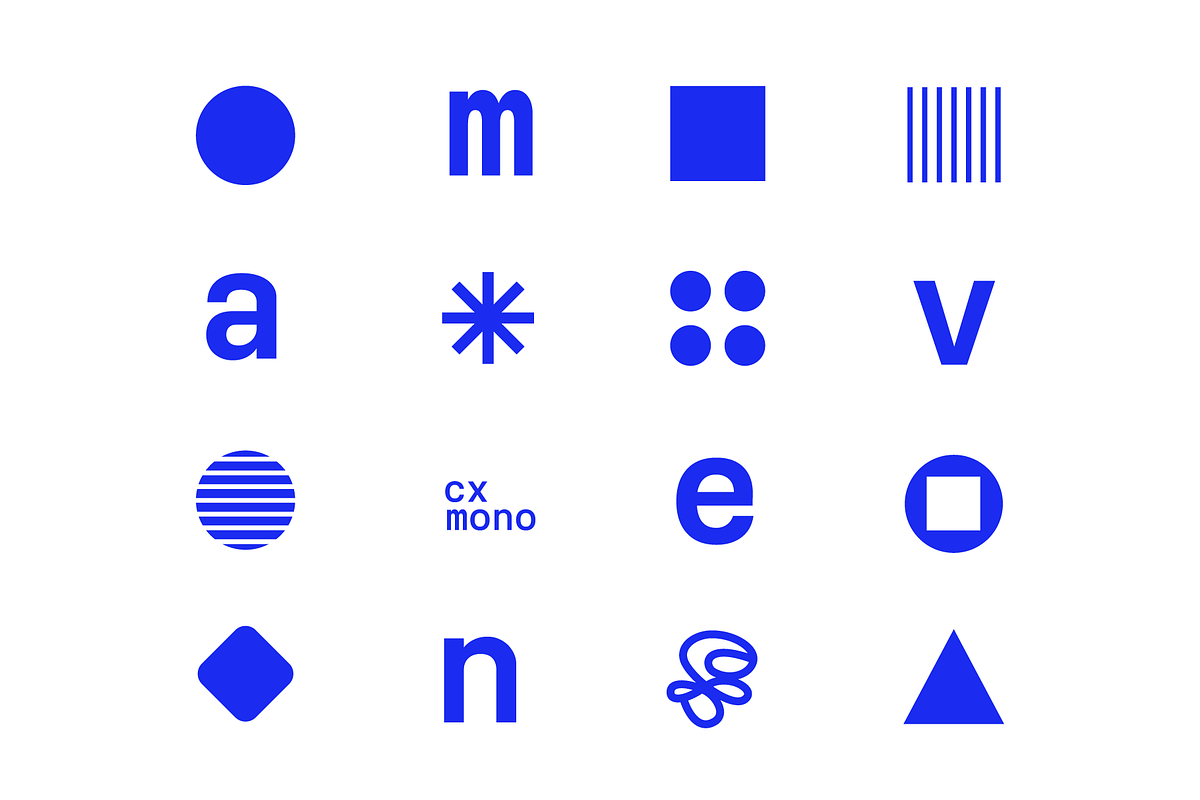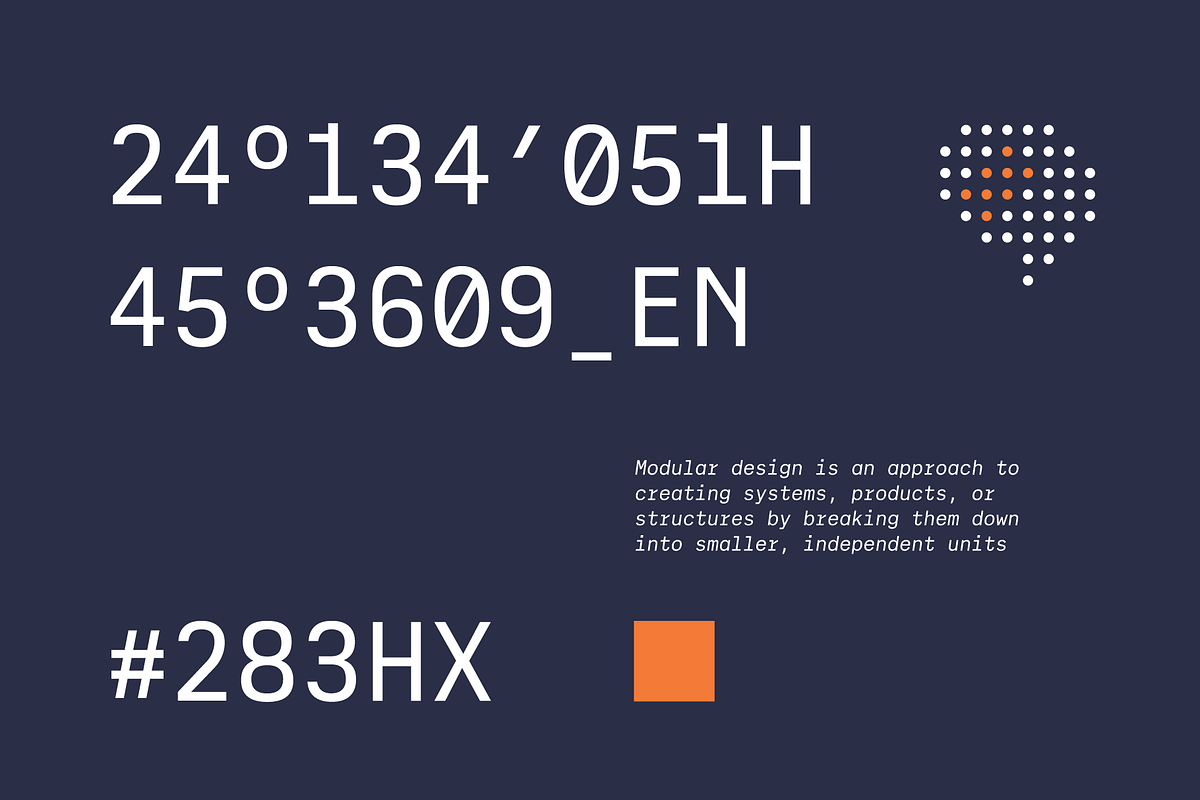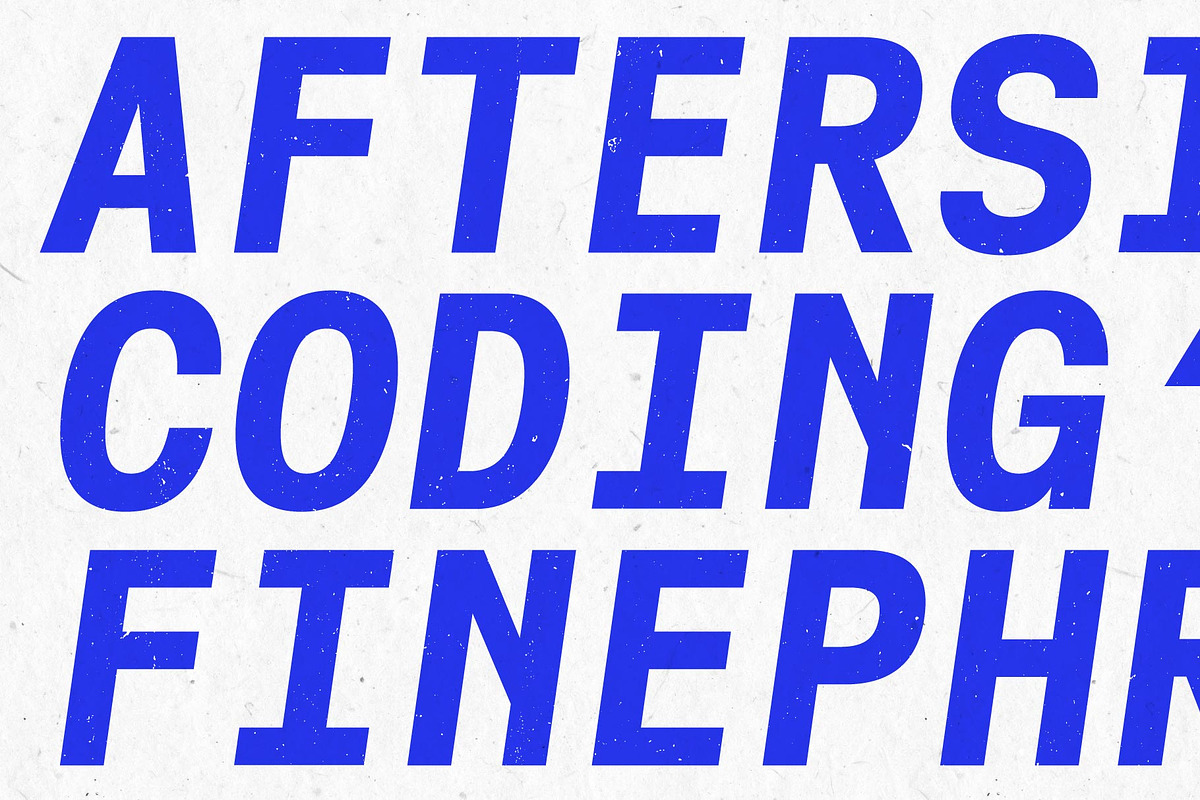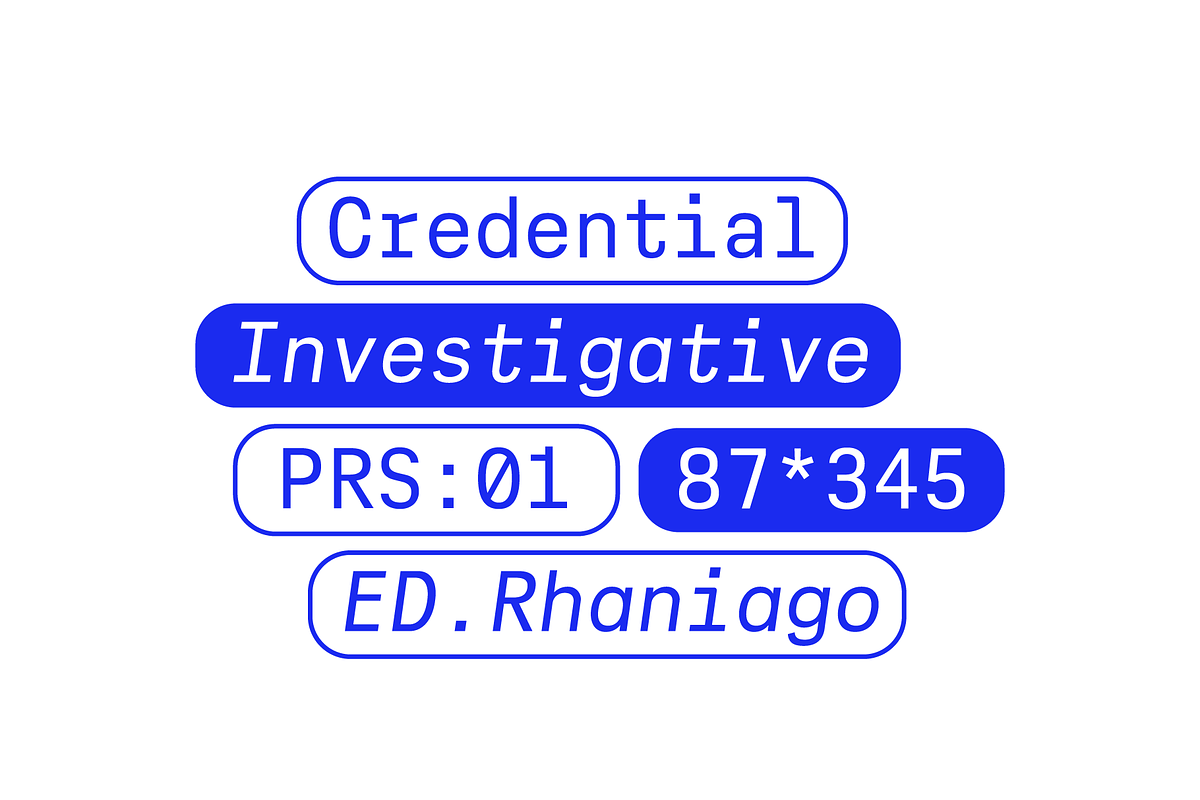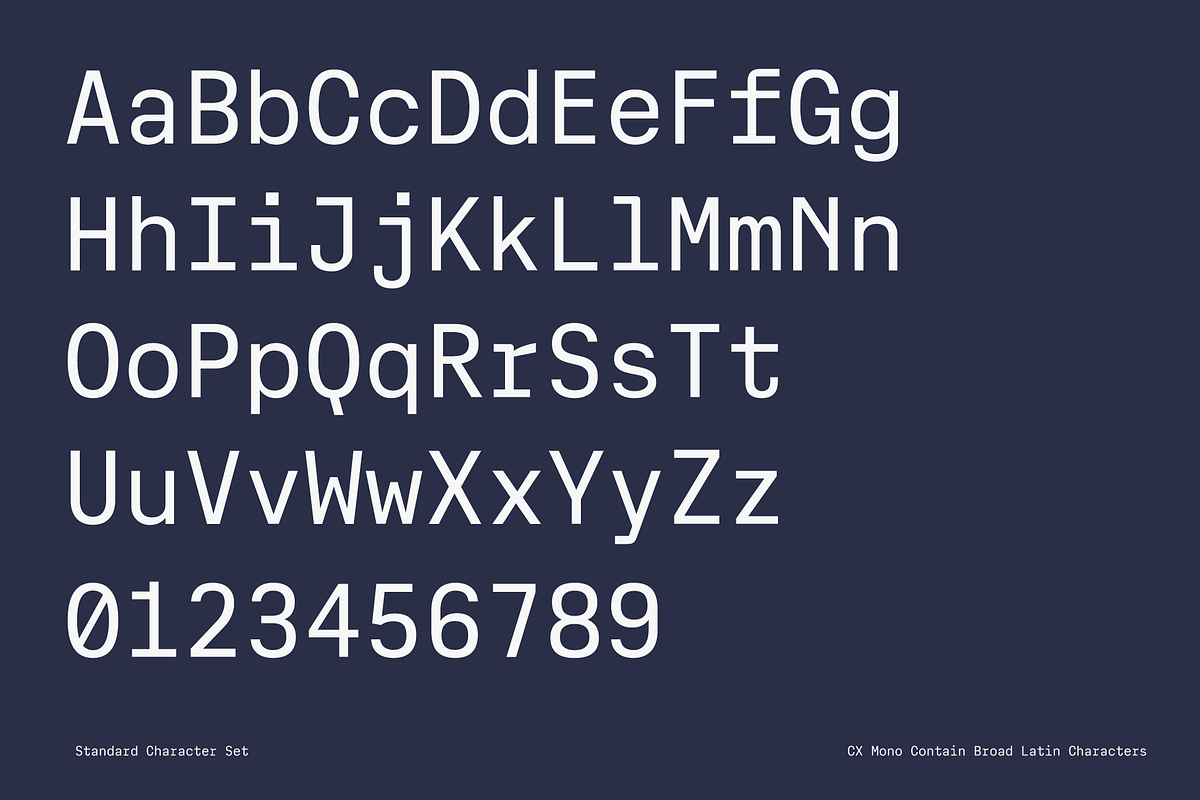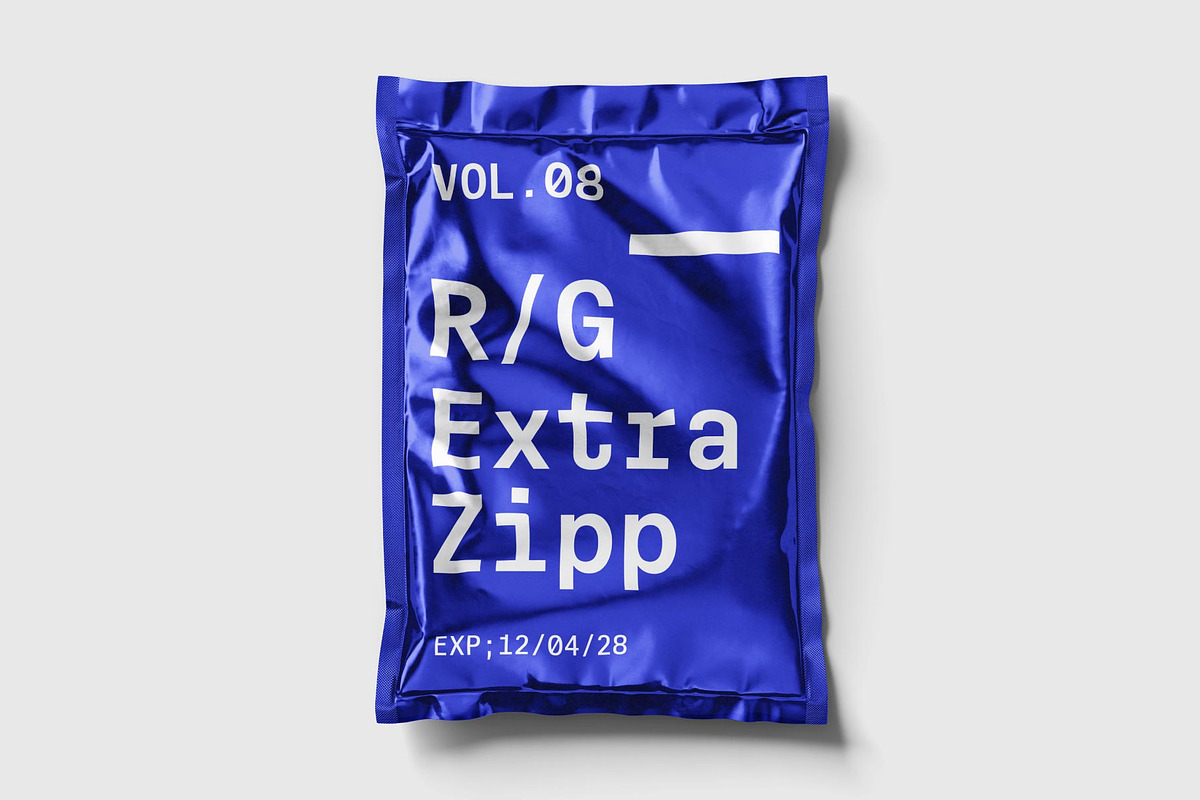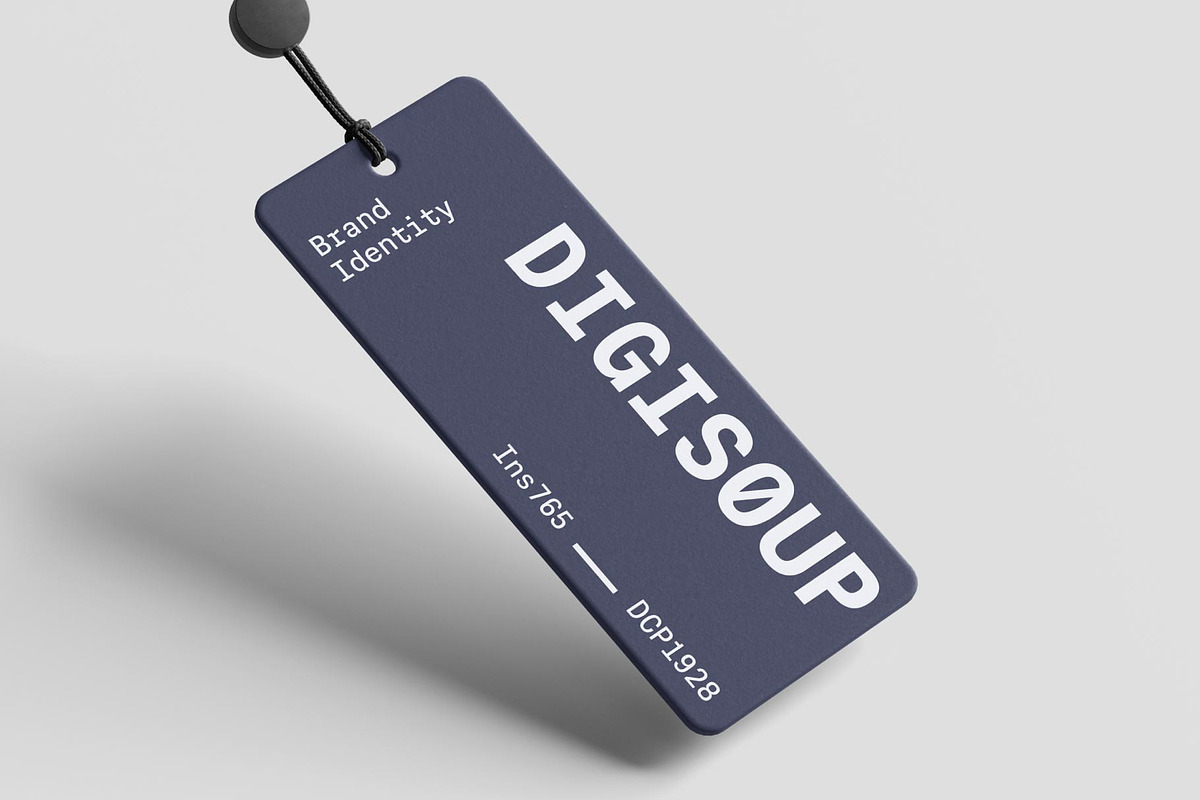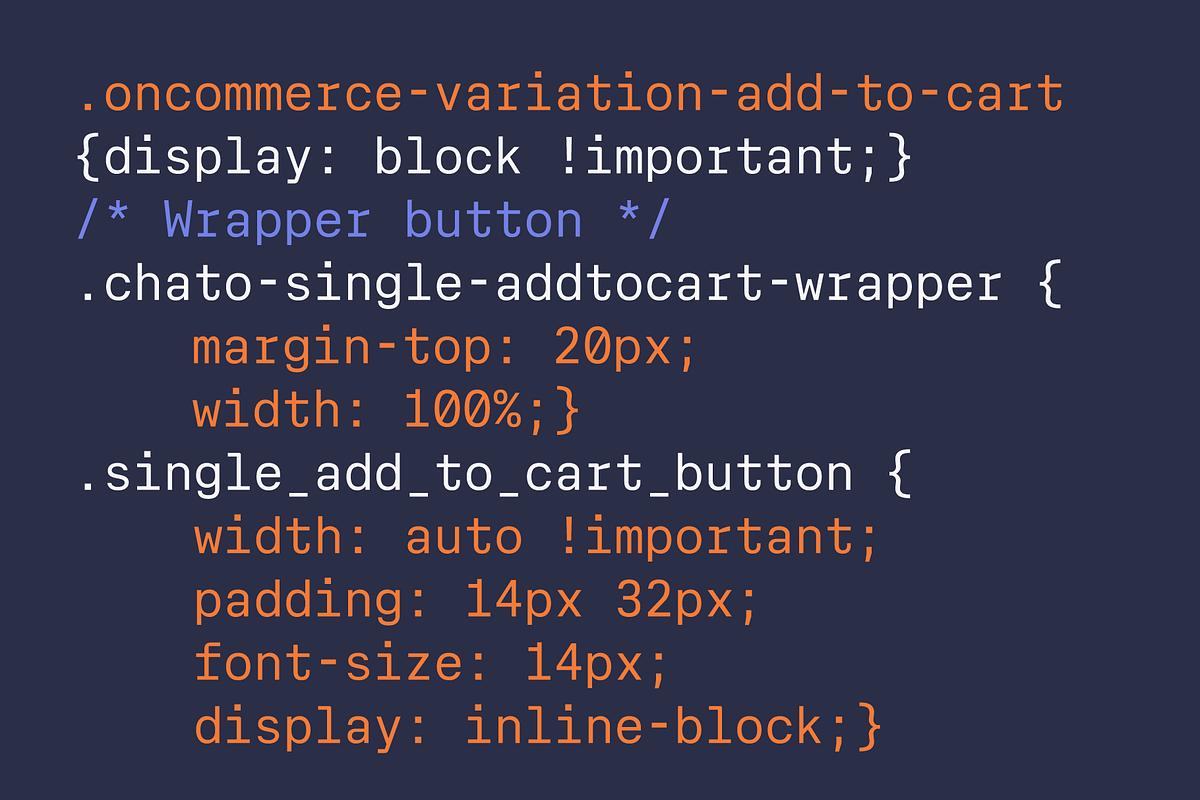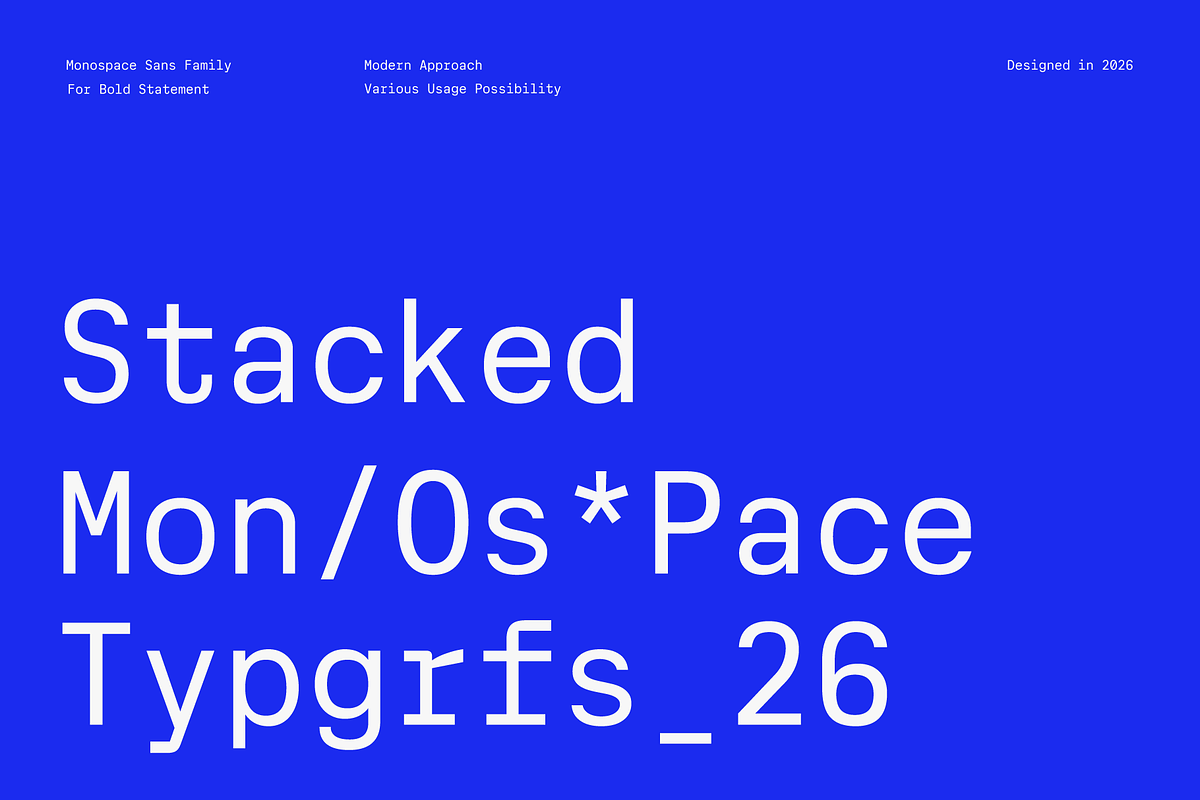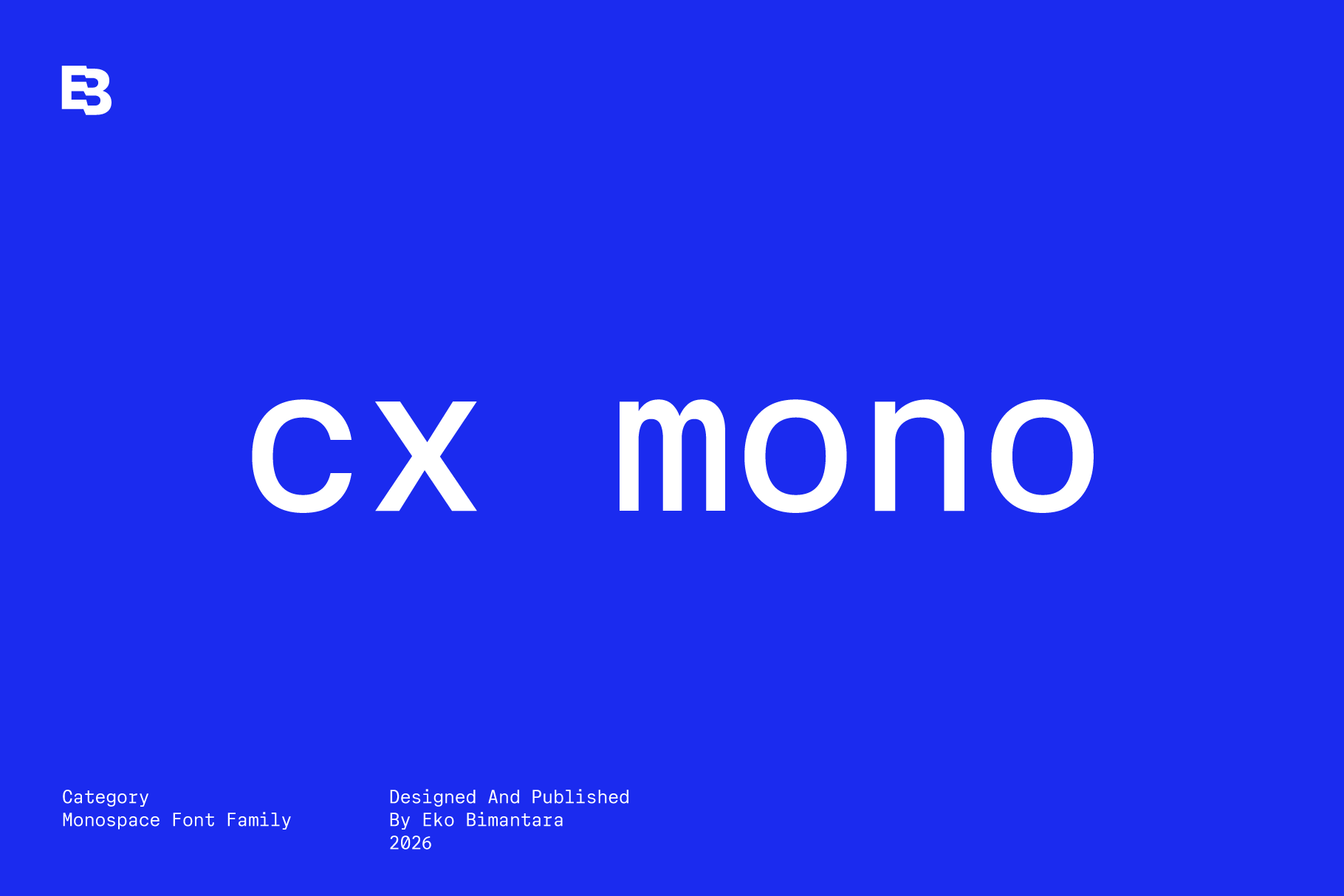
Cx Mono; 12 Fixed Width Fonts
Cx Mono is a modern sans-serif monospace typeface designed for clarity, balance, and contemporary aesthetics. Built with a clean modern grotesk sans serif structure, it delivers excellent readability across technical and visual contexts. Cx Mono features 12 styles ranging from Light to ExtraBold, each with matching italics, providing flexibility for hierarchy and emphasis without breaking the monospace rhythm. Ideal for coding environments, modern layouts, digital products, UI design, branding, and editorial use, Cx Mono combines functional precision with a refined modern character, making it a versatile choice for both professional and creative projects.